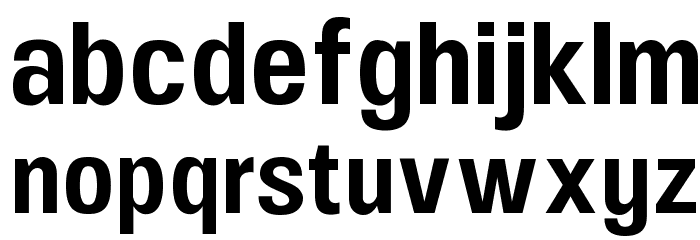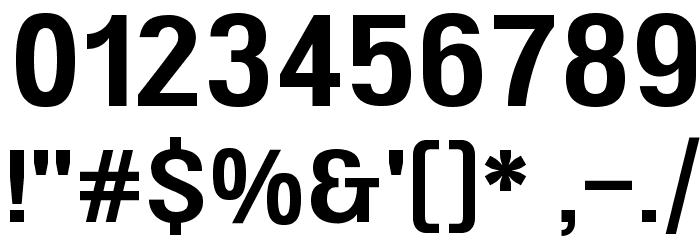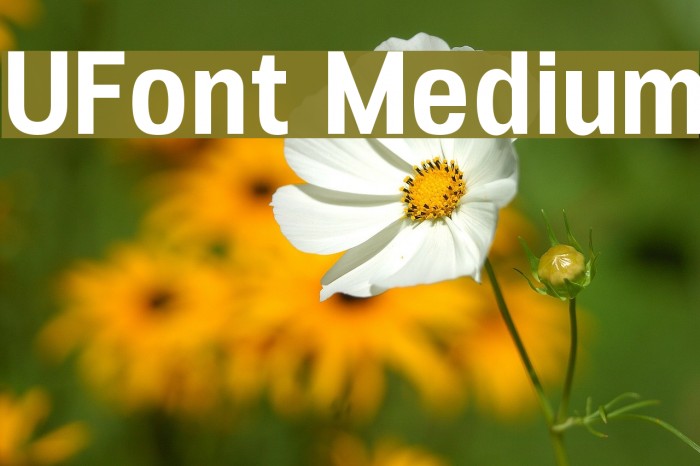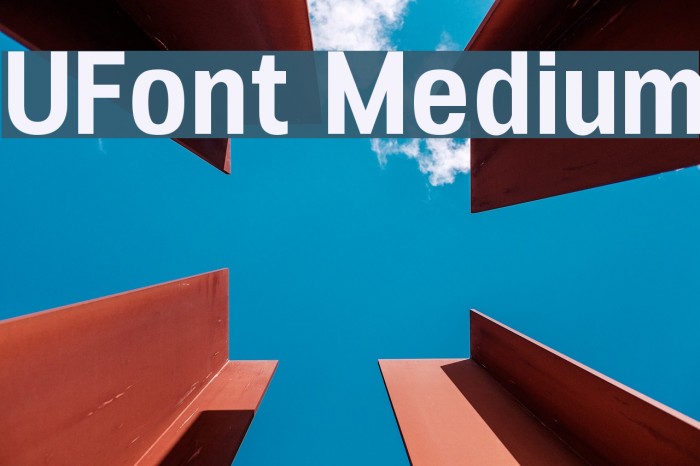
UFont Medium Font
This font features a bold and modern sans-serif design, characterized by clean lines and a strong presence. The uppercase letters are uniform in height, while the lowercase letters maintain a consistent baseline, enhancing readability. The numerals are well-proportioned, and the special characters are distinct, making them suitable for various applications. The overall appearance is sleek and contemporary, ideal for making a statement in both digital and print media.
- Proposed Projects: Ideal for branding, advertising, headlines, and digital content where a modern and bold statement is needed.
- Use Case: Headlines, Logos, Branding